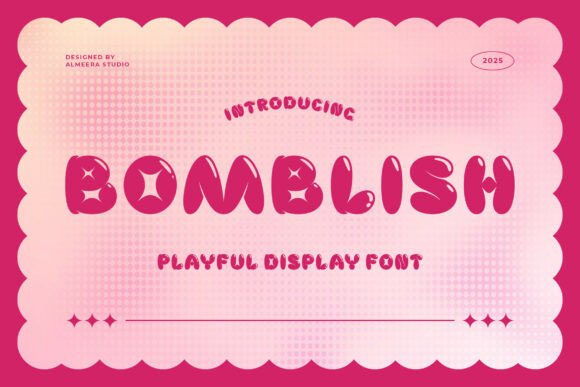
The Joy of Bomblish Font: Adding Fun and Whimsy to Your Designs
Have you ever been working on a design project, and suddenly, it just feels like something’s missing? You’re trying to convey a playful, fun vibe, but your text just looks… flat. That’s exactly what happened to me on a recent children’s book project. My client wanted a font that was bubbly, energetic, and engaging. After scouring the internet, I stumbled upon the Bomblish Font – and it was love at first sight! ✨
An Honest Review of Bomblish Font
- ✨ Playful and fun: Bomblish Font is perfect for projects that need a dash of whimsy and energy.
- ✅ Highly readable: Despite its playful nature, this font remains clear and easy to read, even at smaller sizes.
- 💕 Quirky style: The rounded shapes and bold personality make designs more joyful and approachable.
- 🎉 Versatile: Suitable for various projects, including children’s books, comic titles, packaging, posters, and playful branding.
While Bomblish Font is amazing, it’s not perfect. Here are a few things to keep in mind:
- 🤔 Legibility at very small sizes: While generally readable, some letters might become a bit fuzzy at extremely small sizes (e.g., 6-8 points).
- ⚠️ Overuse: As with any bold font, be careful not to overuse Bomblish Font – it can quickly become overwhelming if used excessively.
The Story Behind Bomblish Font
Bomblish Font was designed with one goal in mind: to bring a dash of fun and playfulness to the world of typography. Its creator, a passionate type designer, wanted to craft a font that would make designs more joyful and approachable. Inspired by the whimsy of children’s books and the boldness of comic titles, Bomblish Font was born.
Q: Is Bomblish Font suitable for body text?
A: While Bomblish Font is highly readable, it’s primarily designed for headings and titles. For body text, you might prefer a more traditional font.
Q: Does Bomblish Font support OpenType features?
A: Yes, Bomblish Font supports various OpenType features, including stylistic alternates, glyphs, and swashes.